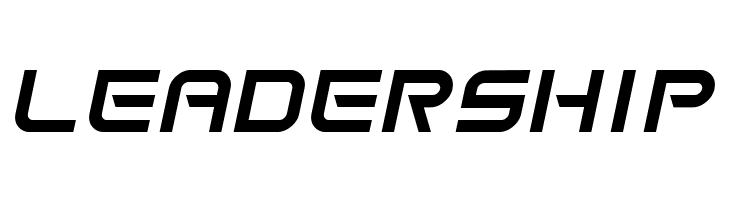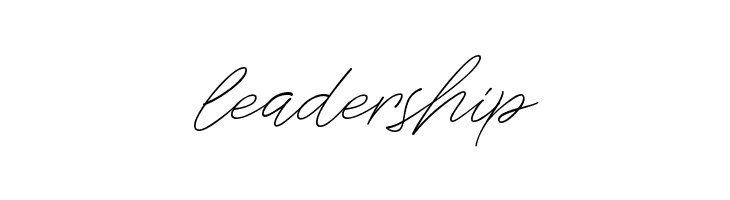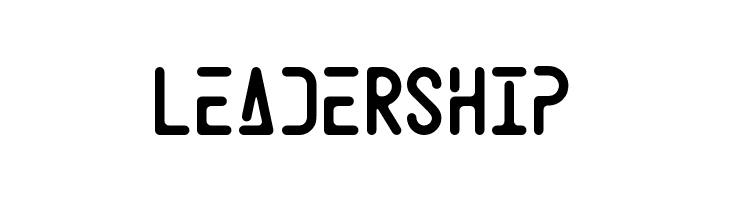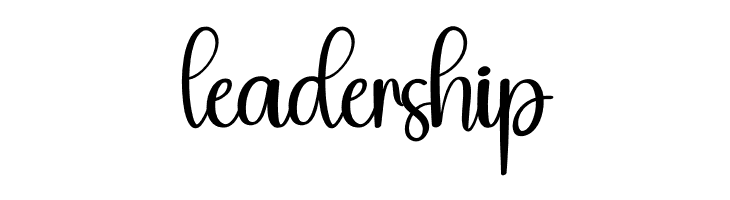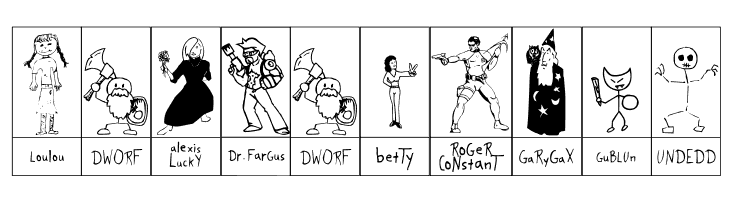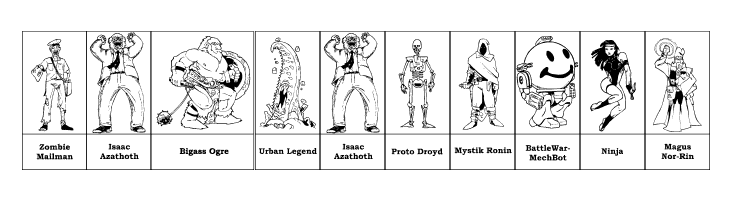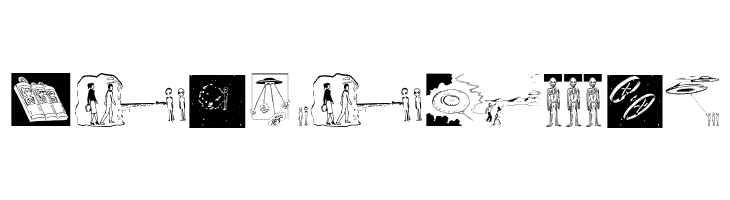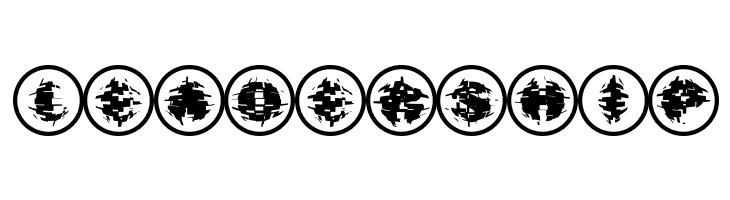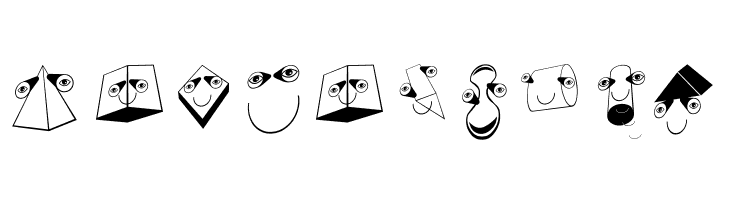
A clean, monospaced font ideal for coding with consistent stroke thickness.
A clean, modern monospaced font with medium contrast and excellent readability.
A modern, versatile sans-serif font with clean, rounded letterforms and balanced proportions.
A bold serif typeface with strong, traditional character and pronounced serifs.
A bold serif typeface with strong, elegant strokes and pronounced serifs.
A refined serif font with thin, elegant strokes and classic proportions.
A refined serif typeface with balanced proportions and elegant details.
A classic serif typeface with elegant strokes and balanced proportions.
A classic serif font with semi-bold weight and moderate contrast, ideal for formal and readable text.
A classic serif typeface with a modern touch and semi-bold weight.
An elegant, flowing script font with interconnected letters and graceful curves.
A playful, whimsical script font with flowing, cursive letterforms and moderate contrast.
A classic serif font with elegant, tapered strokes and a refined appearance.
A bold, futuristic font with geometric and angular letterforms.
A futuristic, geometric font with bold, angular letterforms and consistent stroke width.
A futuristic italic font with angular, consistent strokes and a dynamic slant.
A bold, futuristic stencil-like font with geometric and industrial design.
Abstract shapes resembling faces, not a valid font.
A collection of whimsical space-themed illustrations featuring unique and imaginative creatures.
Playful dingbat font of space-themed cartoon characters and objects.
A playful, alien-themed decorative font with unique character designs.
A playful, creature-themed font with bold, whimsical characters.
A bold, heavy font with strong strokes and a modern aesthetic.
Comic-inspired, character-based decorative font with illustrated glyphs.
A playful, hand-drawn font with a whimsical, cartoonish style.